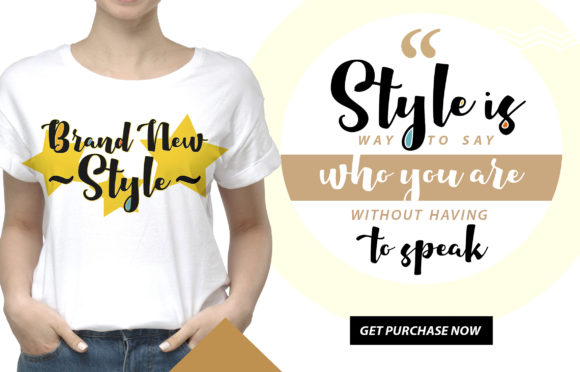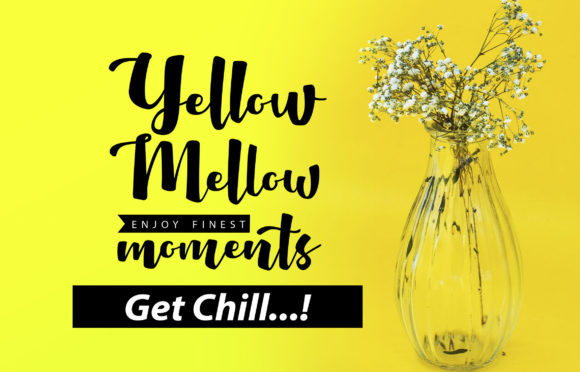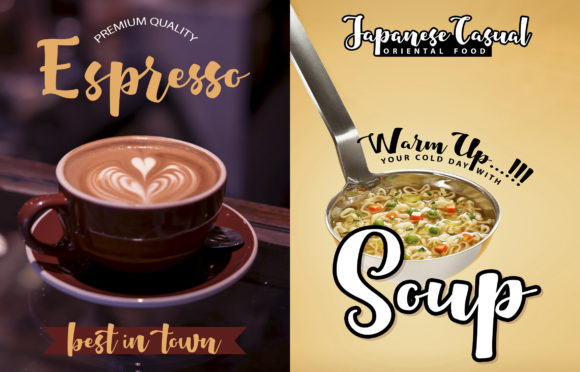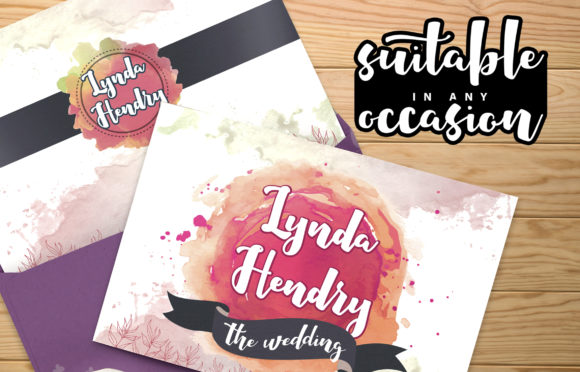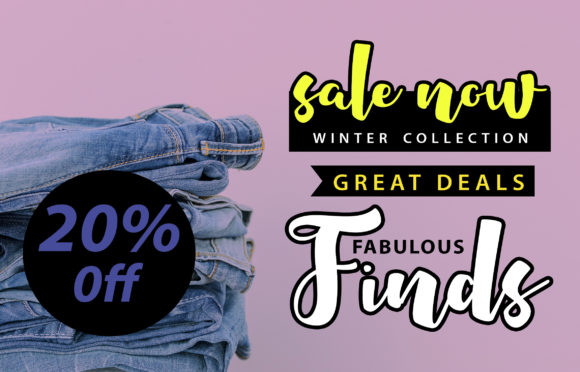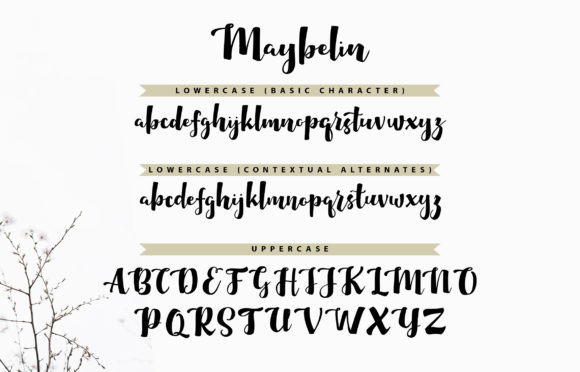
Introduction to Maybelin Font
Maybelin is a stunning and fancy calligraphy script that will work well in a wide variety of crafting projects.
It will turn any design idea into a true standout .
Key Features of Maybelin Font
Why Choose Maybelin Font?
Maybelin Font offers exceptional quality and versatility, making it a valuable addition to your design toolkit. Whether you’re creating for personal projects or commercial use, Maybelin Font delivers professional results.